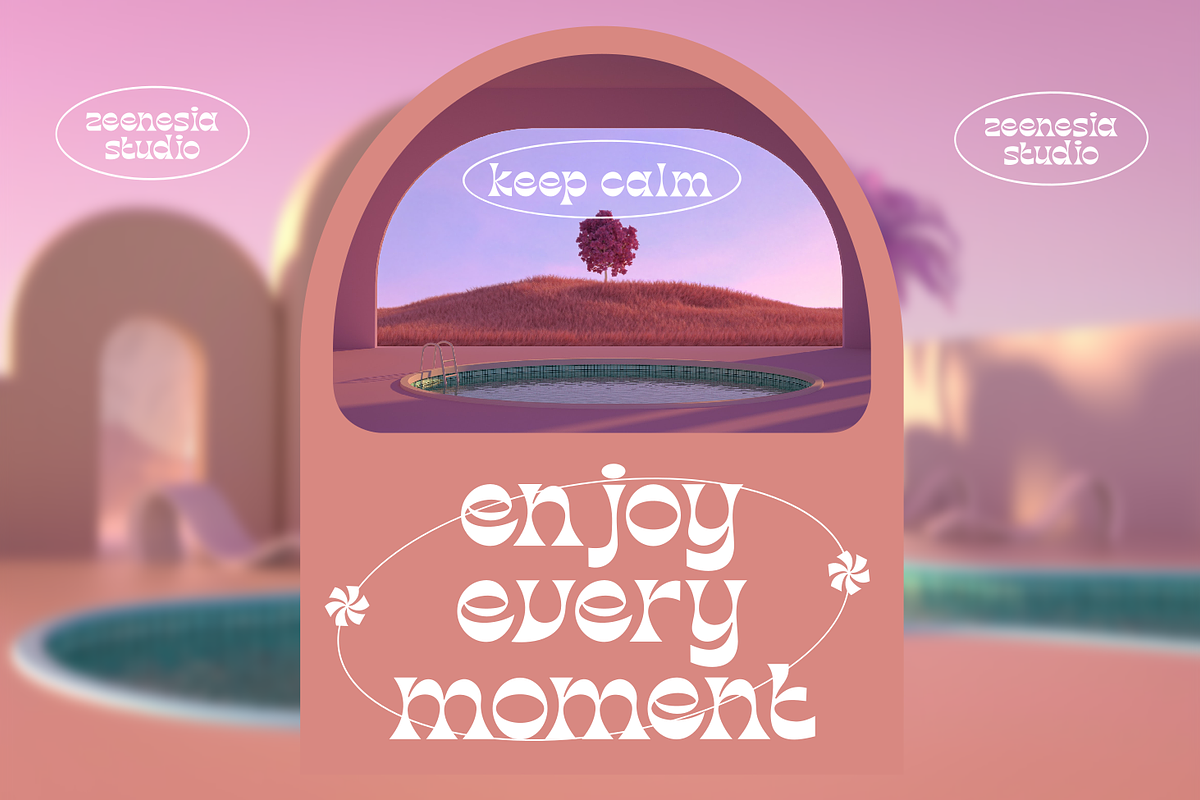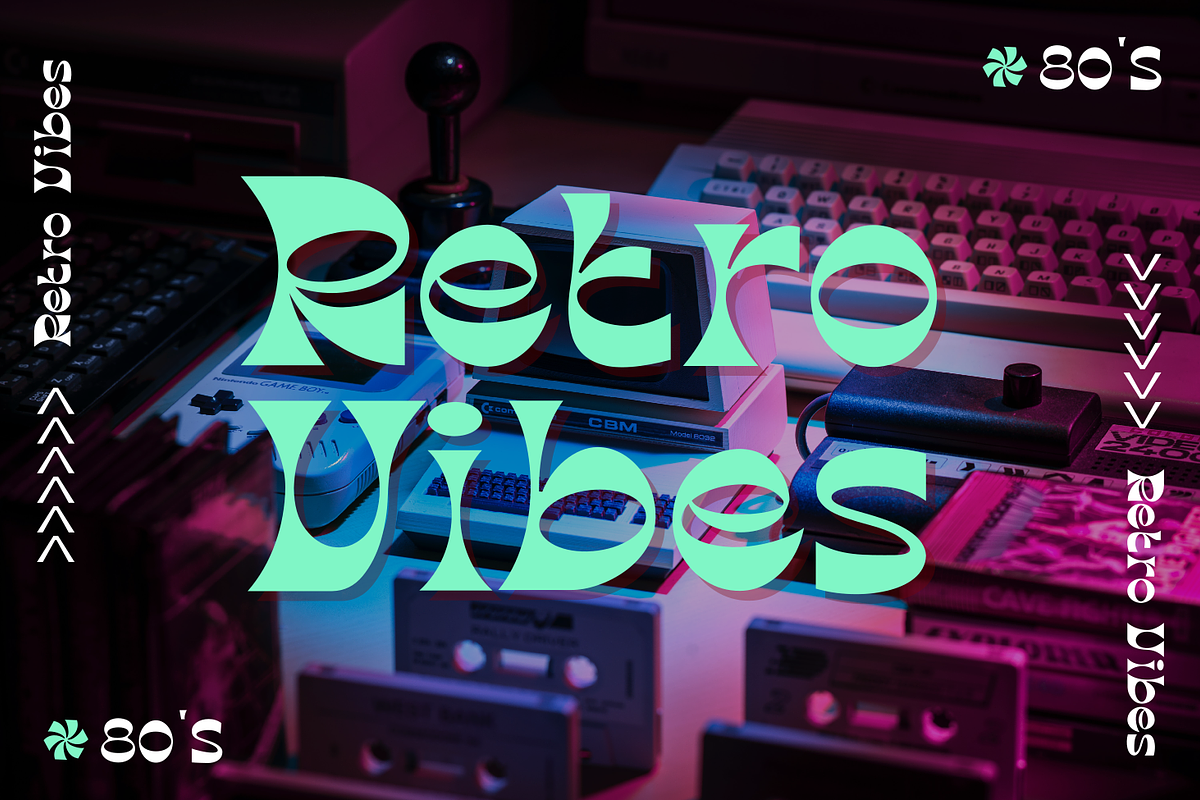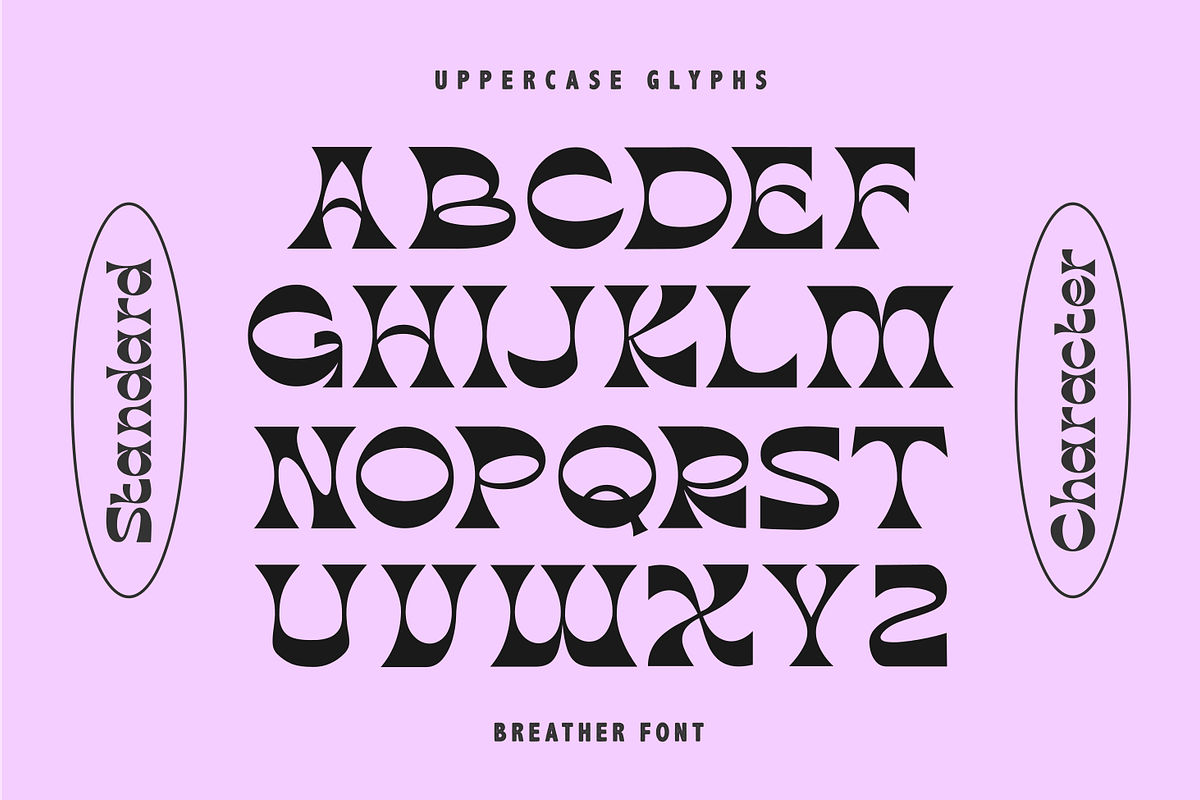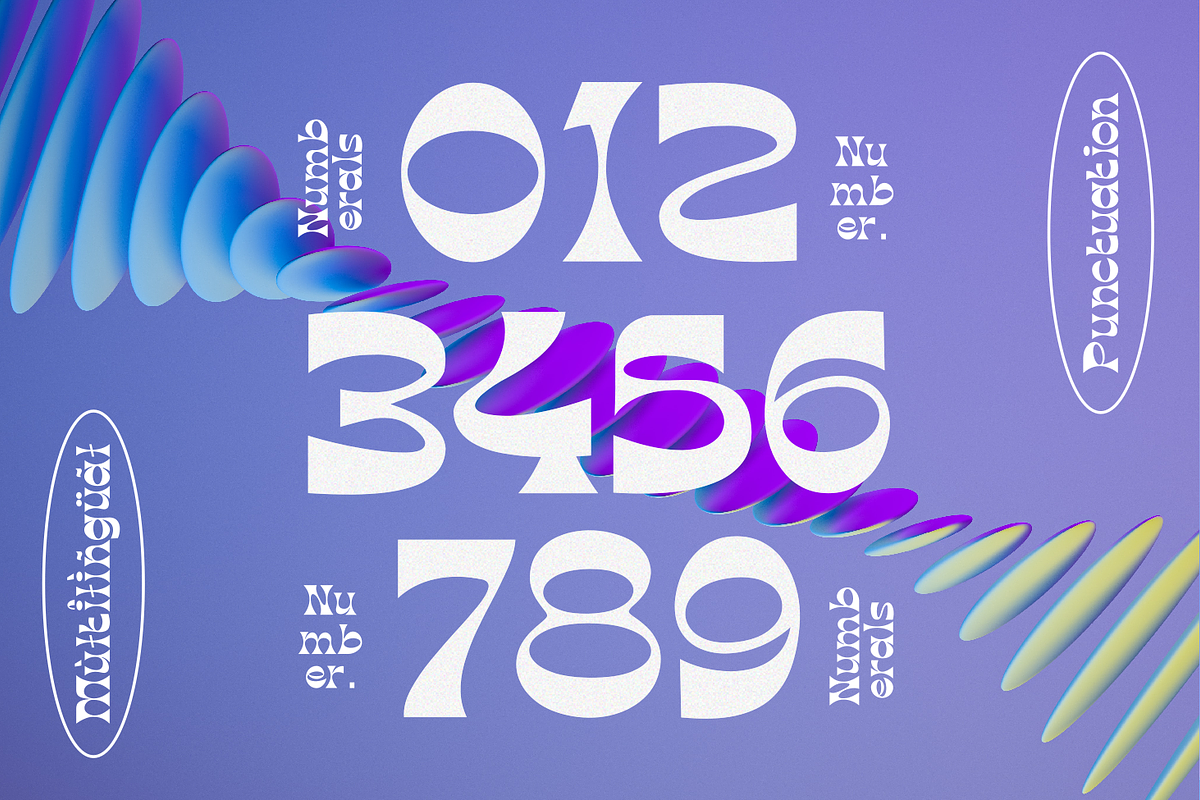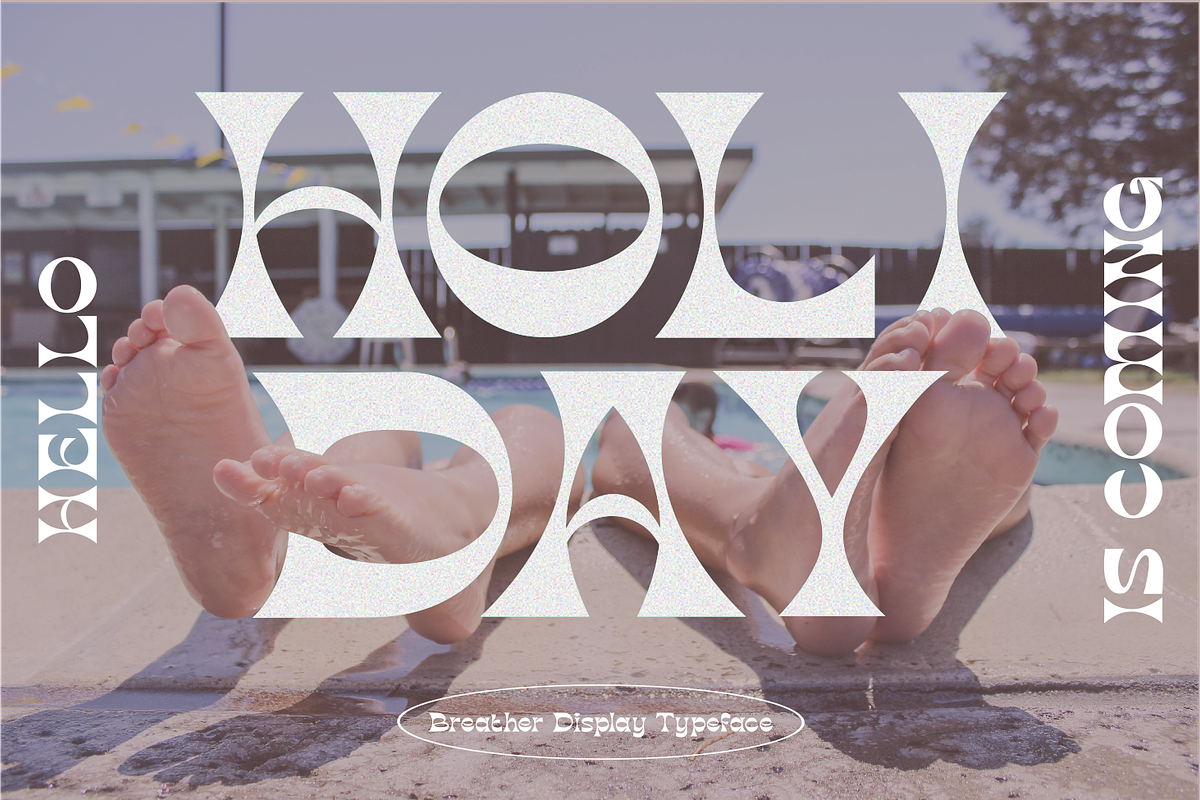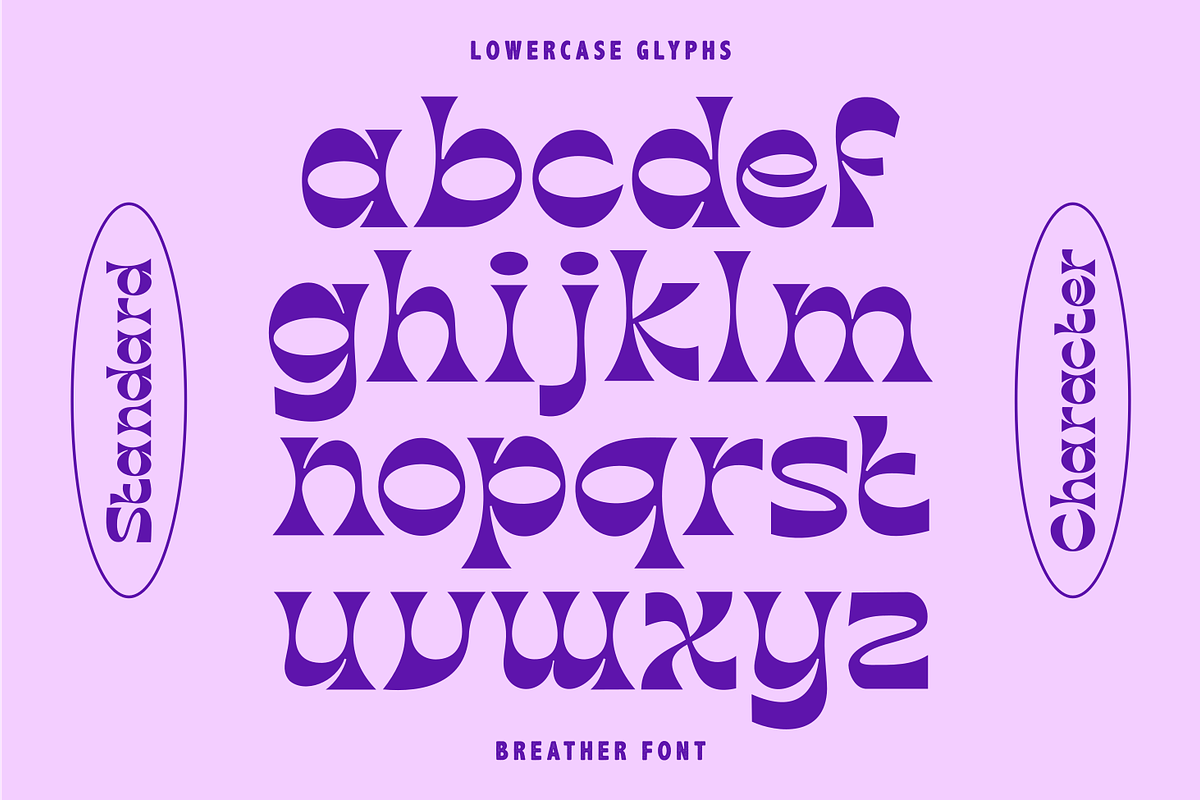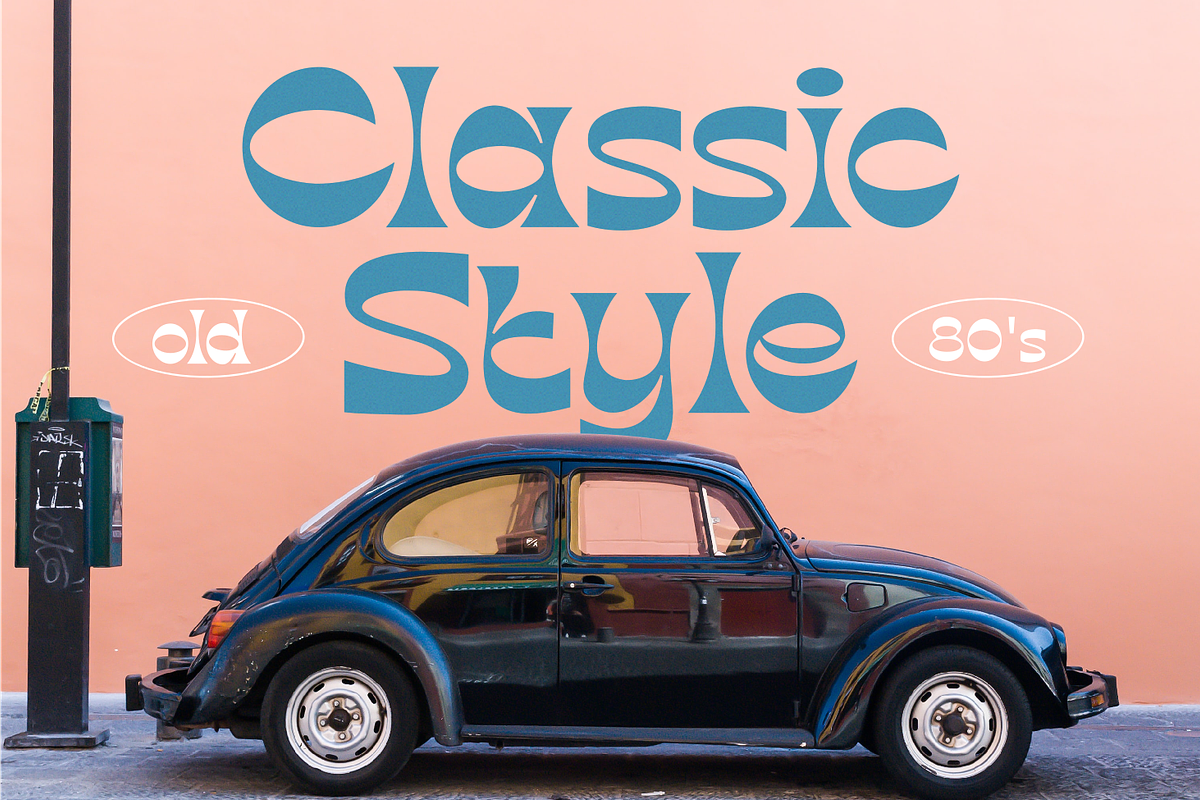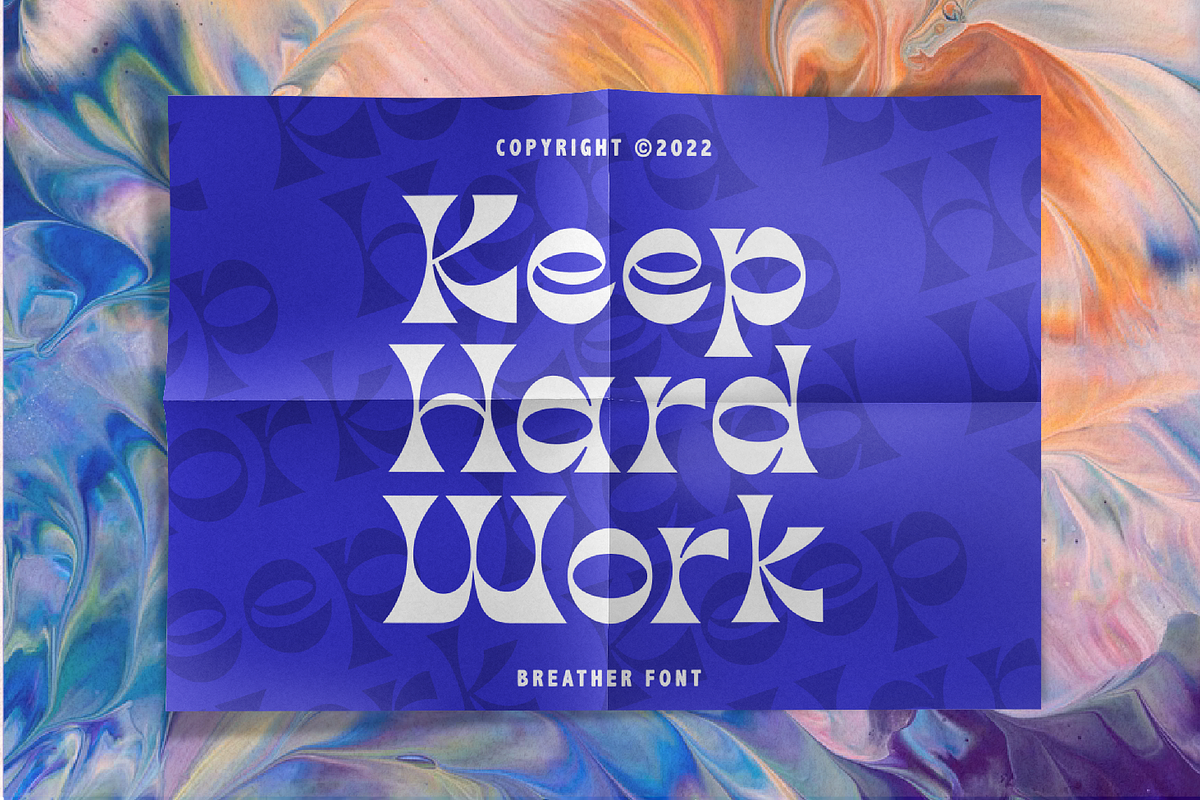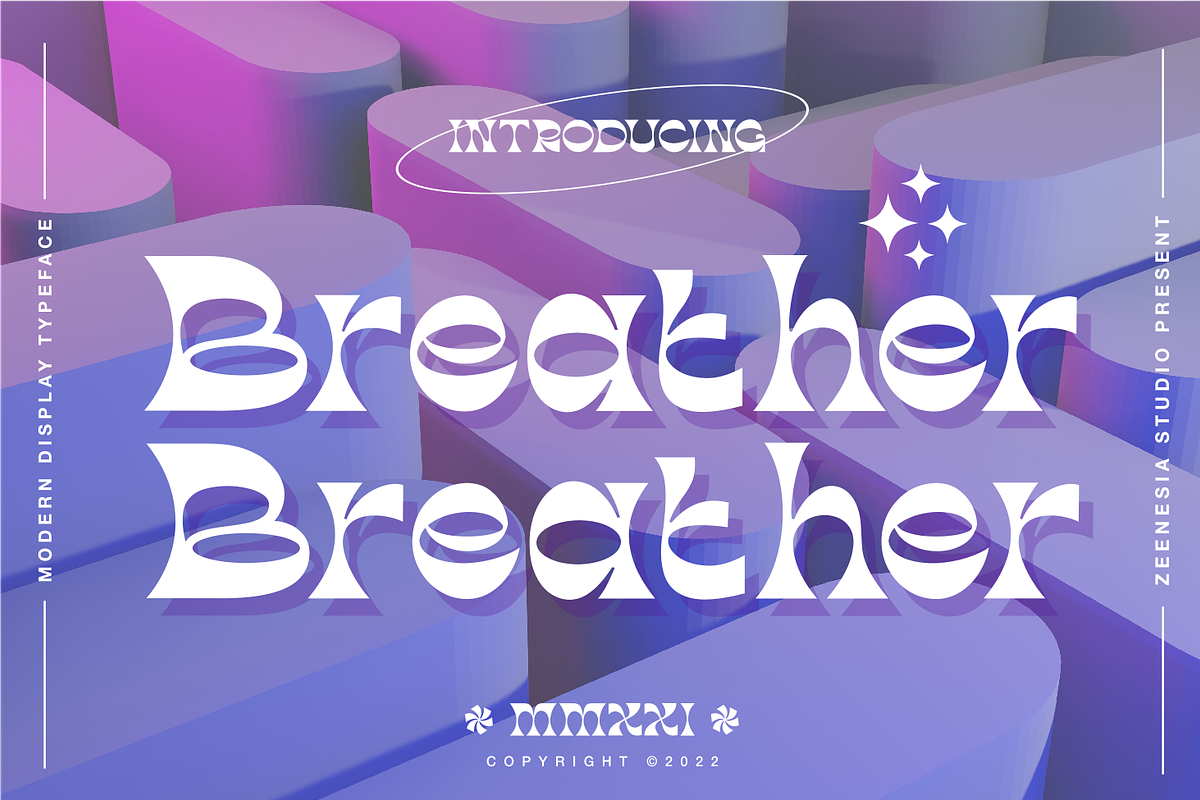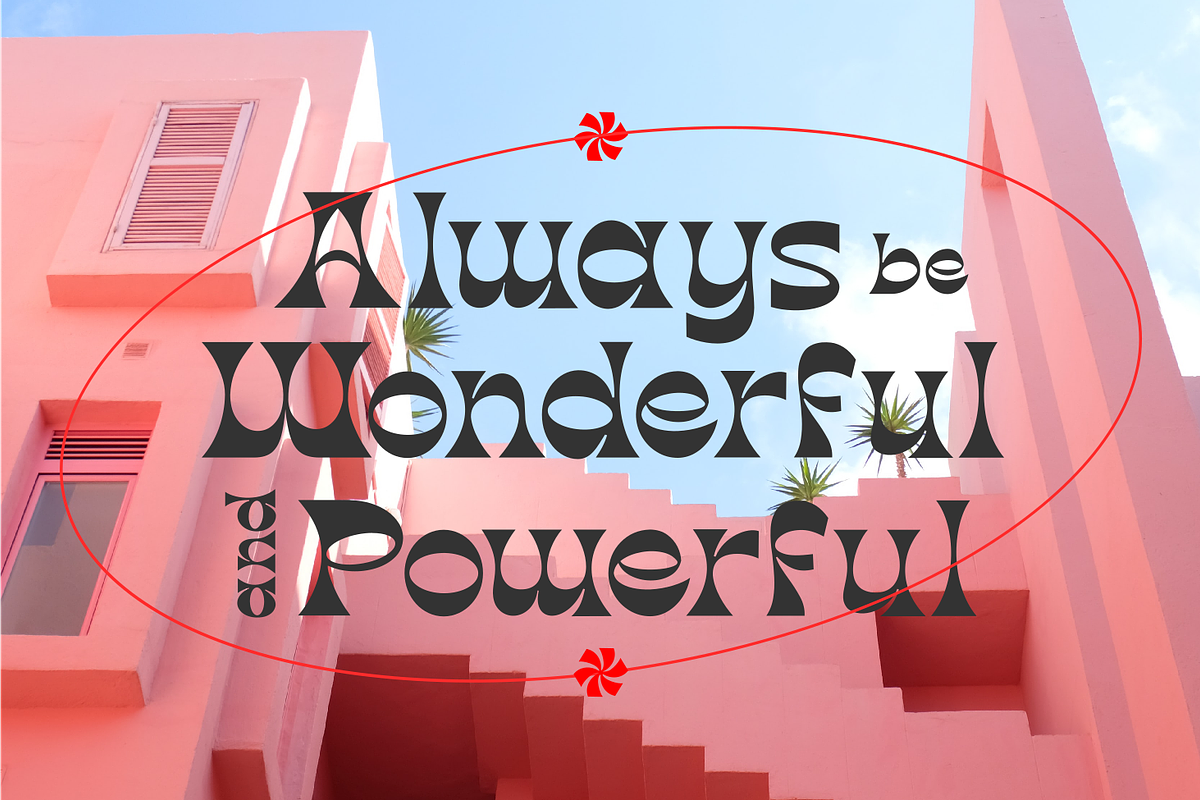
Breather - Modern Serif Typeface
Breather is a bold modern display font with serif style. It's retro, bold, and playful. Perfect if you need a dose of fun in your project. This is a unique display typeface perfect for gorgeous logos & titles.
- Symbols and Number